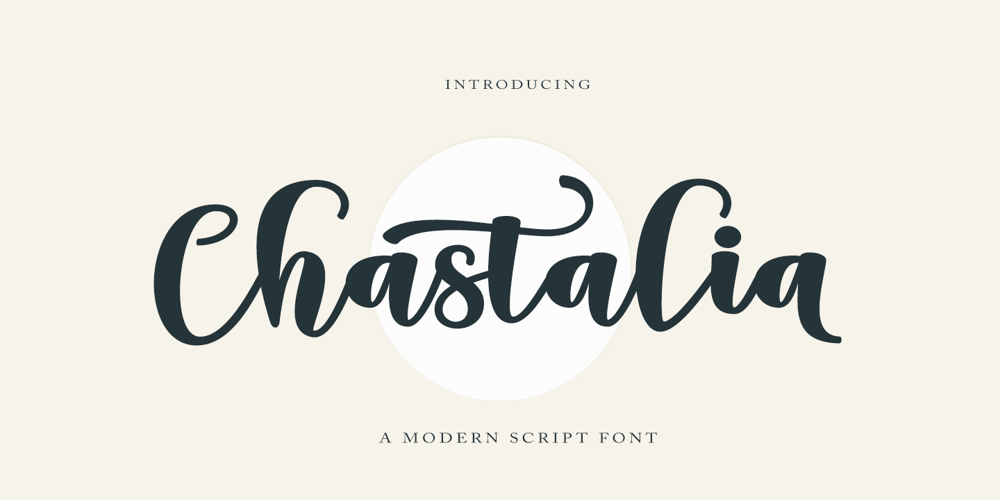
Chastalia Script
Chastalia Script font
Chastalia Script Font Family was designed by Has Rizal and published by Hrz Studio. Chastalia Script contains 1 styles and family package options. Thanks for checking out Chastalia Script A very fun yet elegant script font with lots of energy, allowing you to create beautiful handcrafted typography in an instant. With extra curves & twists, Chastalia Script is guaranteed to make your text stand out – perfect for logos, printed quotes, invitations, cards, product packaging, headers and anything else you can imagine.What’s really awesome is that Chastalia Script comes with a full set of lowercase alternatives, which allow you to create more authentic custom-feel texts.This type has become the work of true love, making it as easy and fun as possible.I can’t wait to see what you do with Chastalia Script Feel free to use the #Hasrizal tag and the #Chastalia Script font to show what you’ve done, I really hope you enjoy it!Thank You!